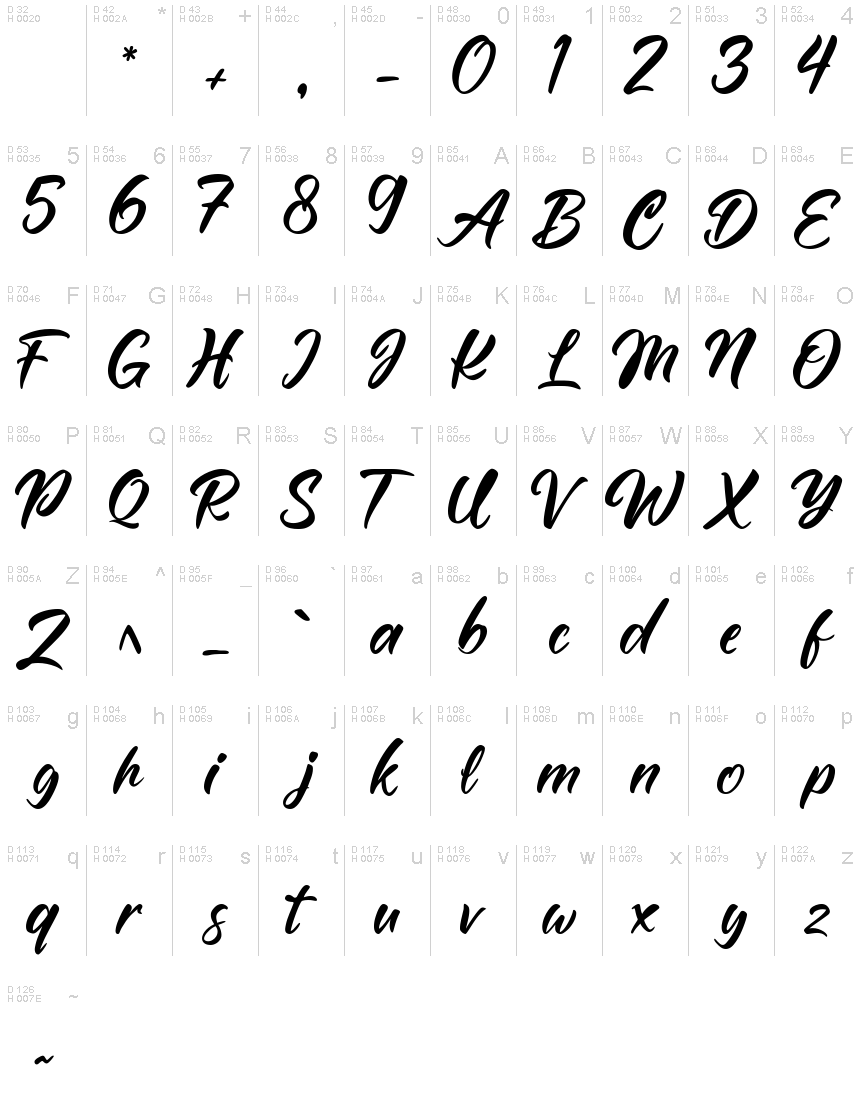
Rhaganeo Demo Regular
Rhaganeo is a captivating font that exudes a harmonious blend of smooth, brush-like strokes and a distinct marker-inspired aesthetic. Crafted by the talented team at Lettermine Studio, this font effortlessly balances elegance and dynamism, making it an exceptional choice for a wide range of design applications.
The fluid, calligraphic-inspired curves of Rhaganeo lend a sense of warmth and sophistication to any project, whether it's a modern branding initiative, a sleek editorial layout, or a charming package design. Its versatility allows it to seamlessly transition between formal and casual contexts, making it a valuable asset in the creative professional's toolkit.